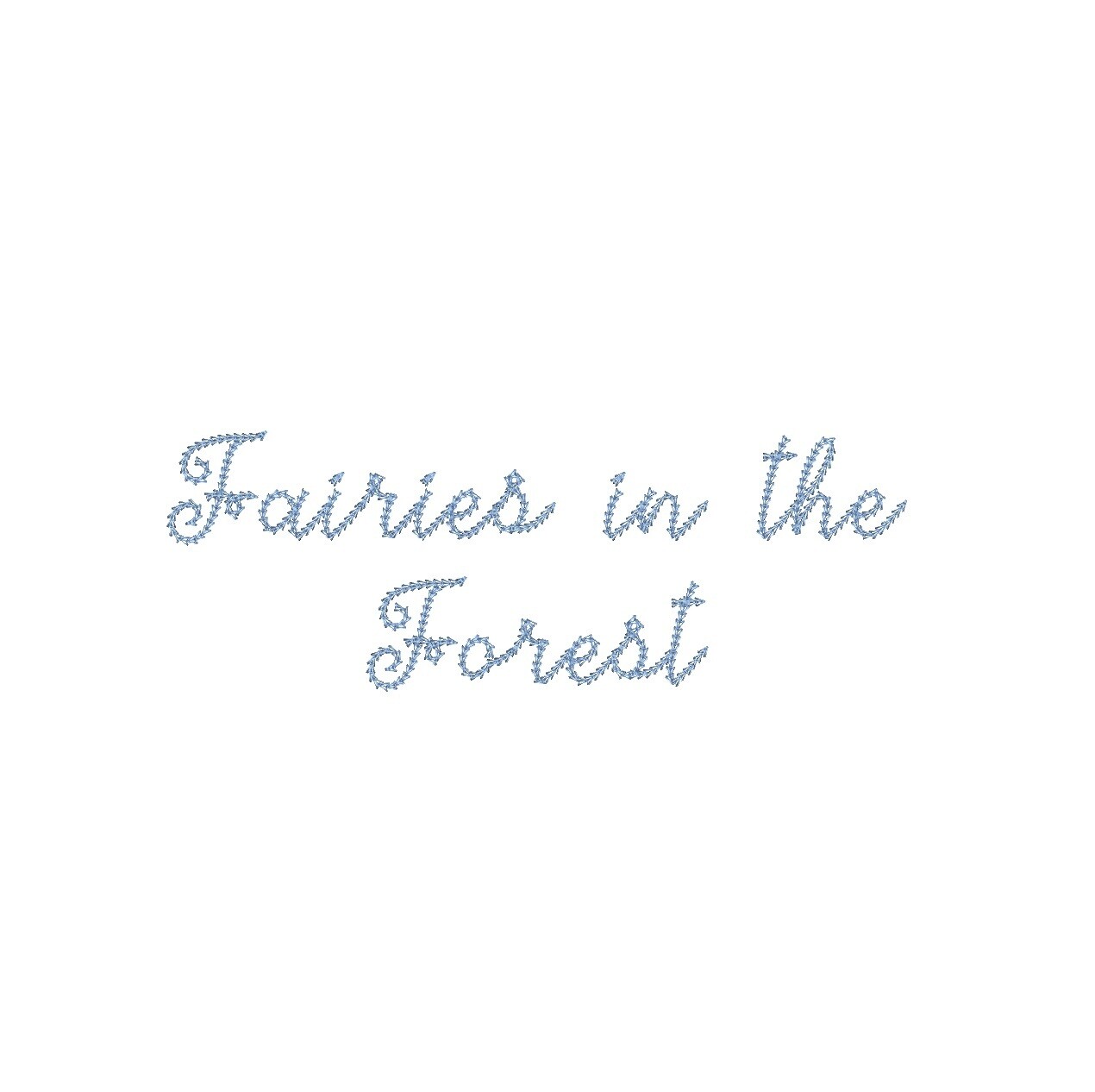
Elevate your embroidery with Fairies in the Forest Chain Stitch ESA font, compatible with Wilcom Studio e4.5.6 and Hatch 3 versions and up. This font transports your designs into a magical realm, where intricate chain stitch artistry adds depth and allure to every project. Seamlessly integrate for captivating results that stand out. Fairies in the Forest transforms fabric into a canvas of fantasy, infusing your creations with whimsical charm. Elevate your embroidery with this seamless blend of technology and artistry. Experience the enchantment of Fairies in the Forest Chain Stitch ESA font to redefine stitching excellence. Upgrade your designs today for a fairy-tale touch.